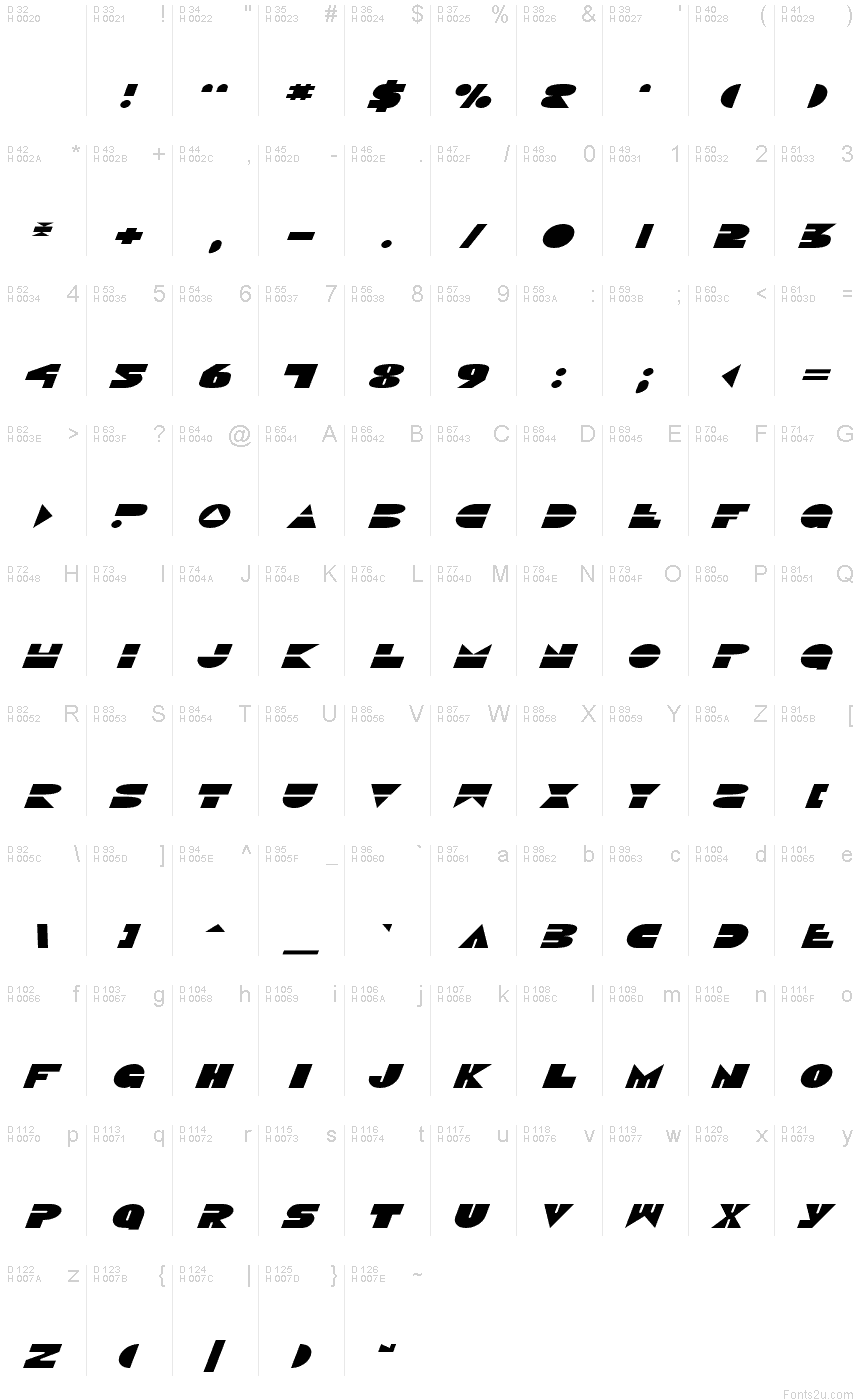
Disco Duck ExpItalic
Disco Duck ExpItalic font by Daniel Zadorozny of Iconian Fonts is a free, hyper-angled techno typeface with wide, racing silhouettes and chunky strokes that feel built for speed. Each letter leans forward aggressively, with smooth curves and hard cuts that give titles a sense of momentum and club-floor energy. It’s a bold choice when you need text to look loud, confident, and unmistakably modern.
This free font thrives in oversized settings like game logos, sci‑fi movie titles, sports branding, DJ flyers, streaming overlays, and futuristic product packaging. Disco Duck ExpItalic works best when given plenty of space and paired with a simple neutral sans serif for body copy. Set it large, keep the color palette tight, and let the slanted, extended forms do the heavy lifting in your layout.